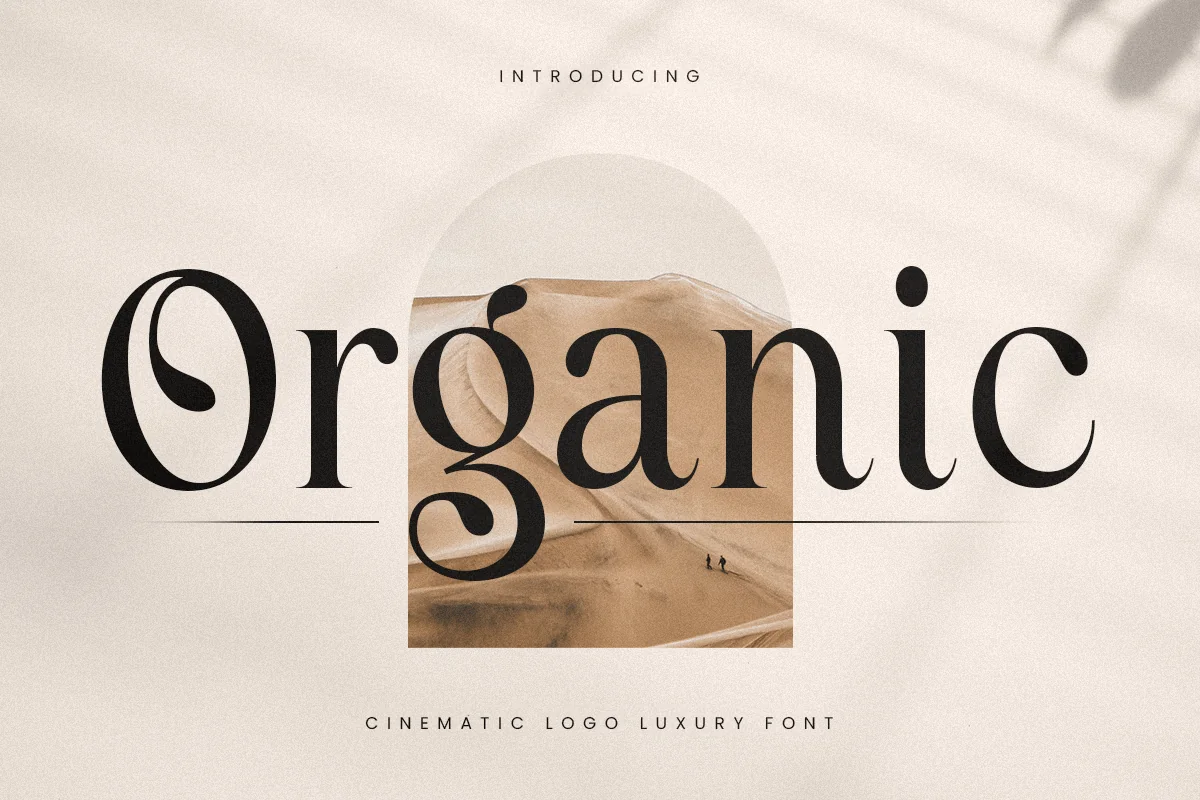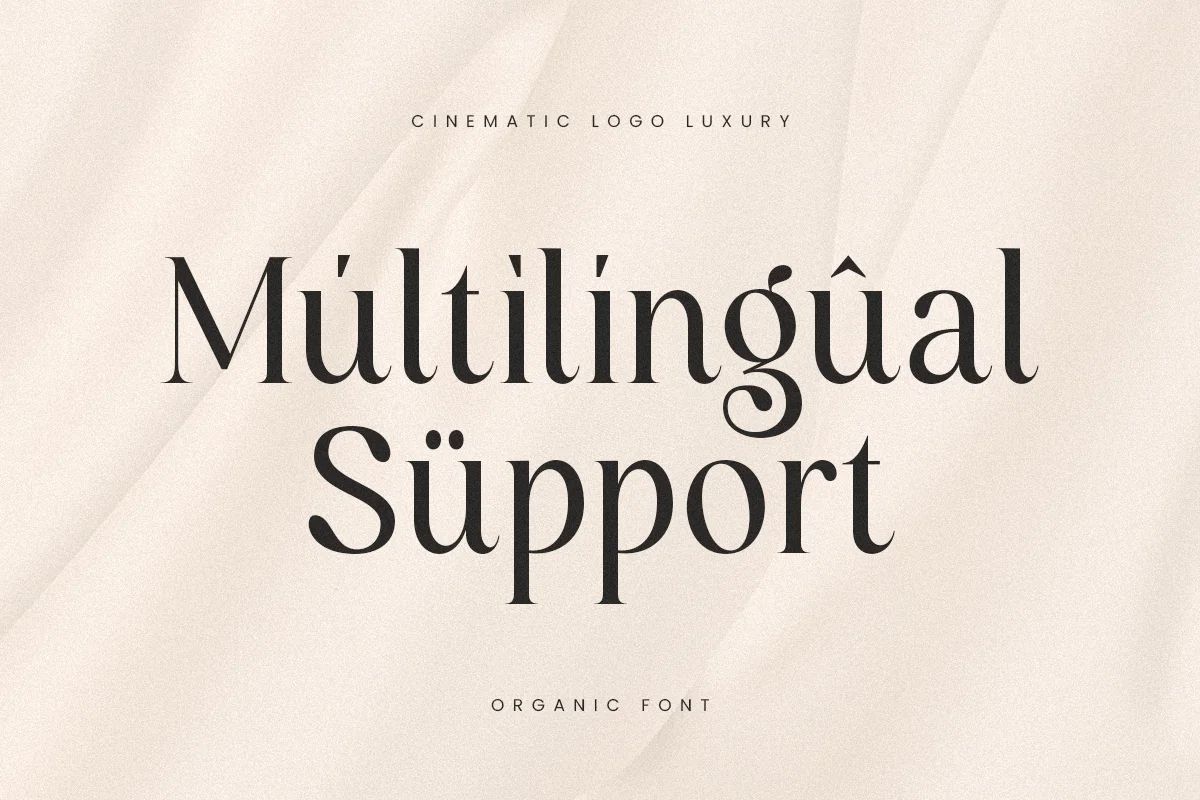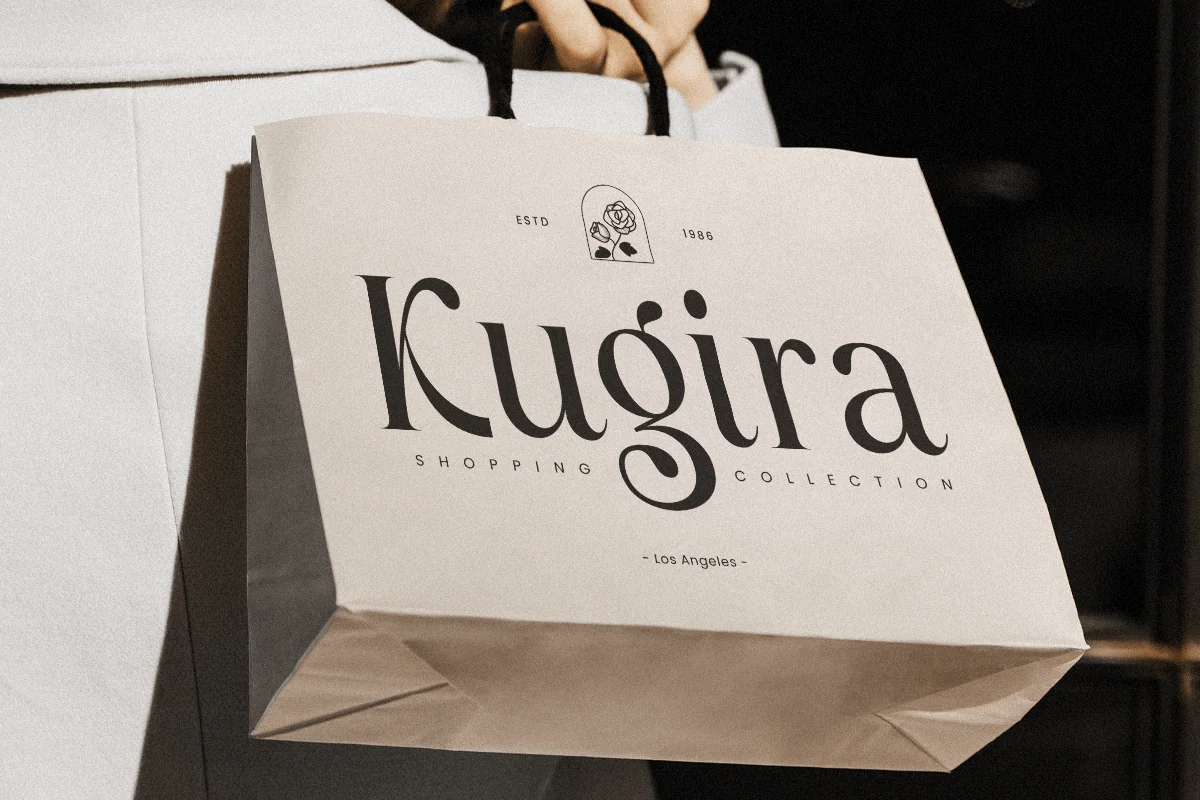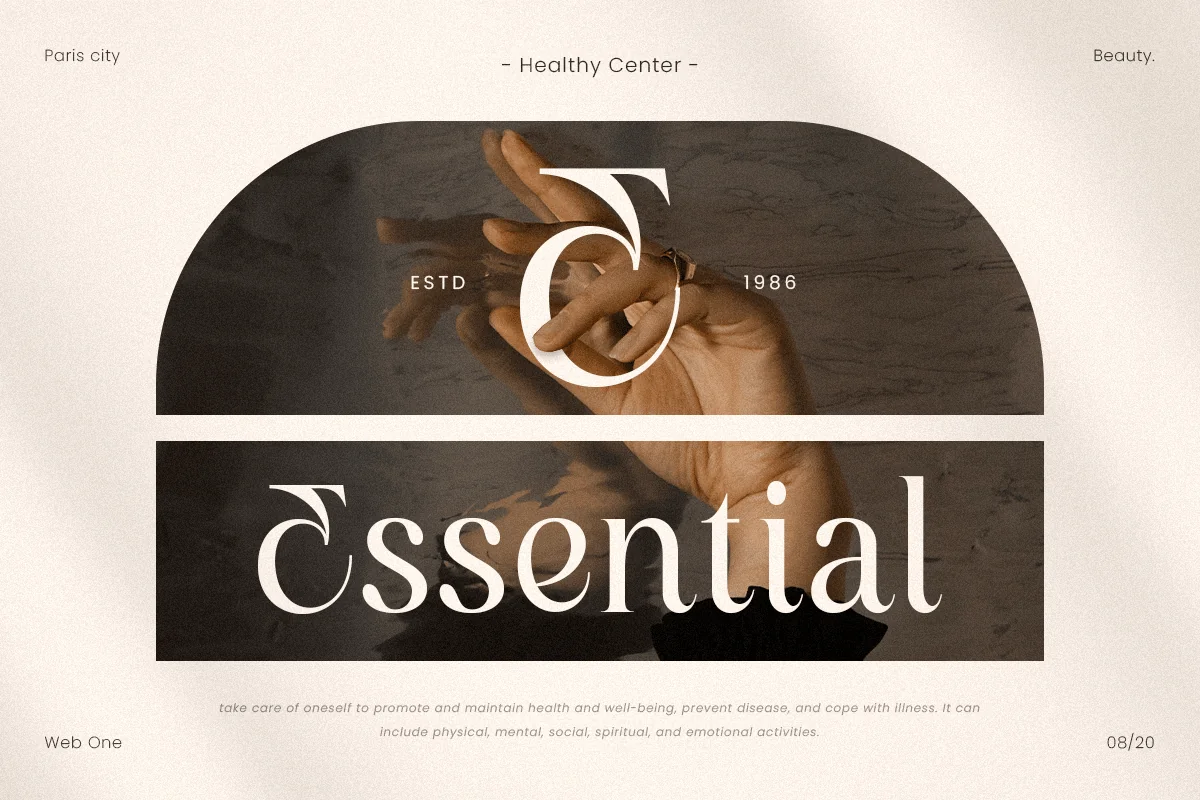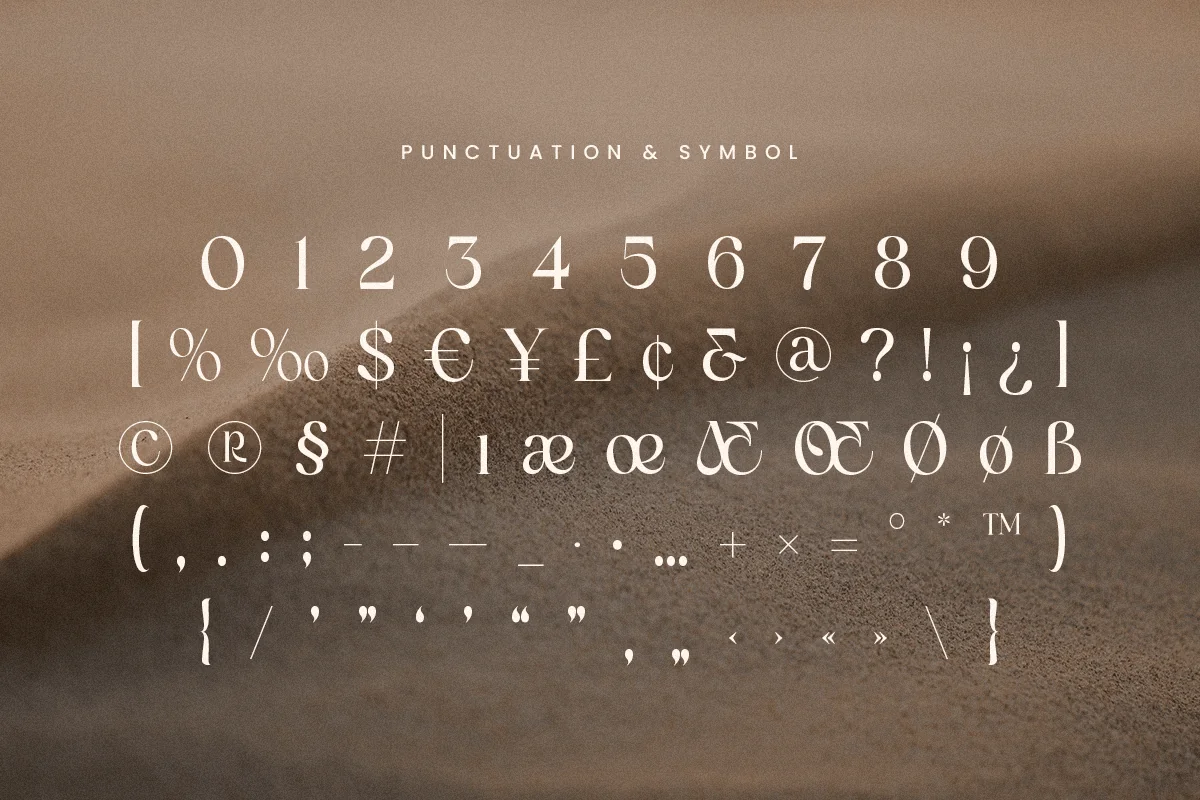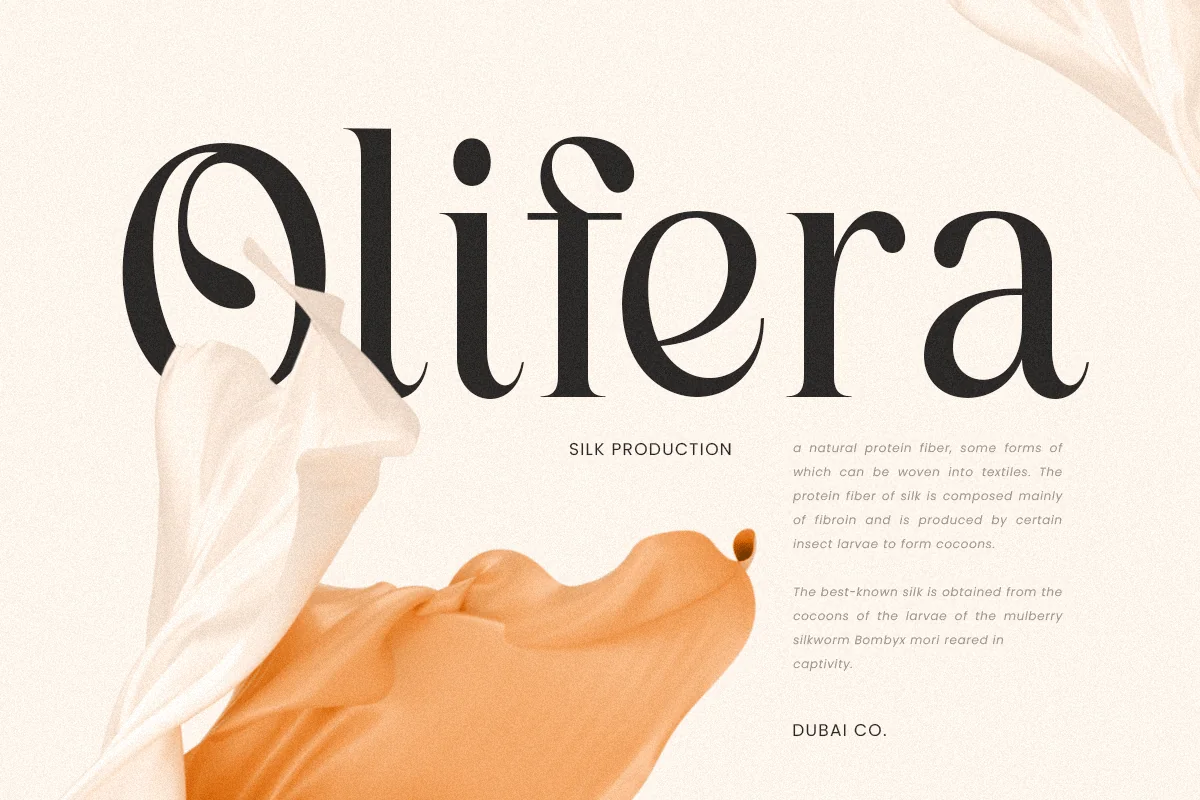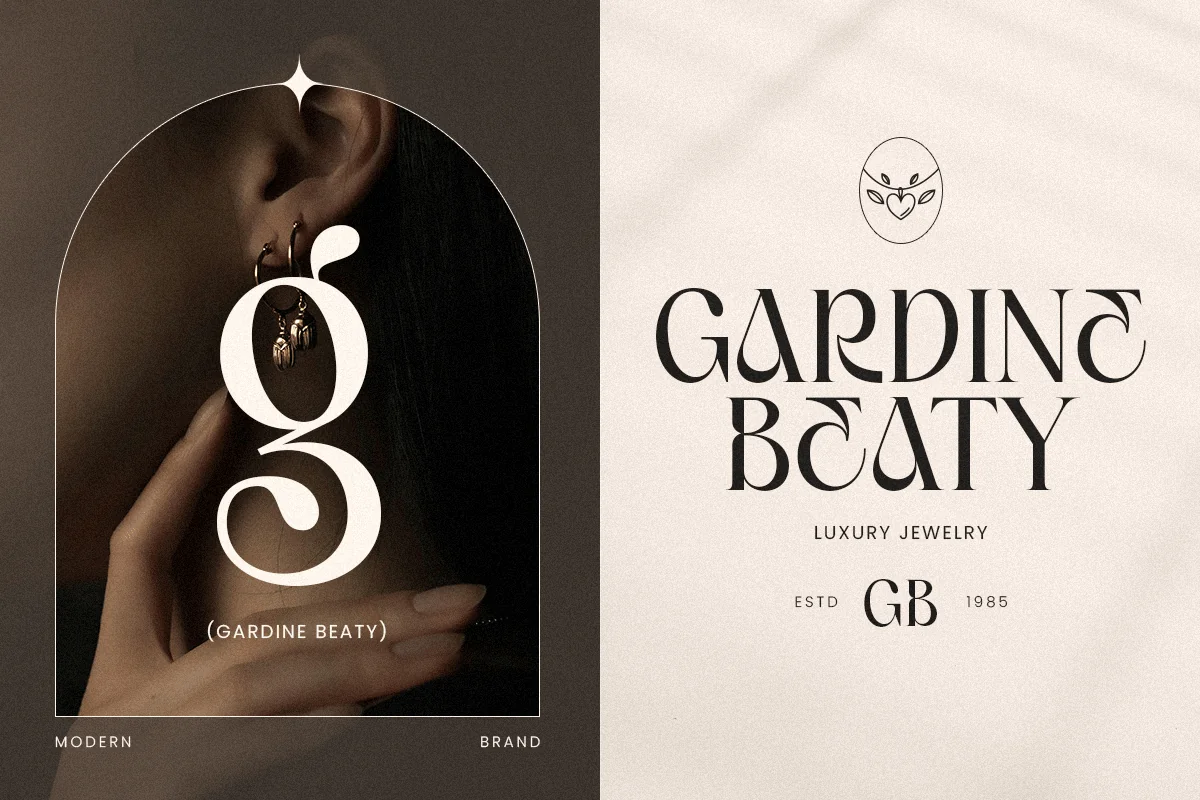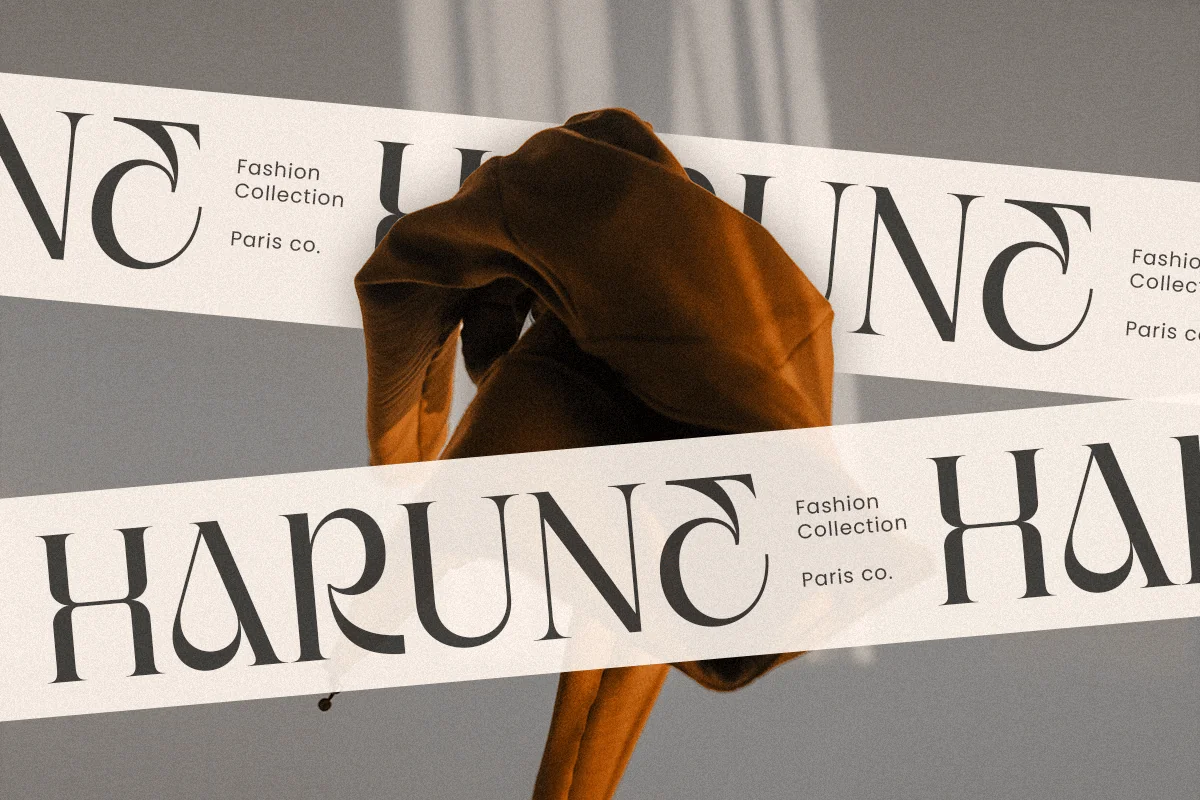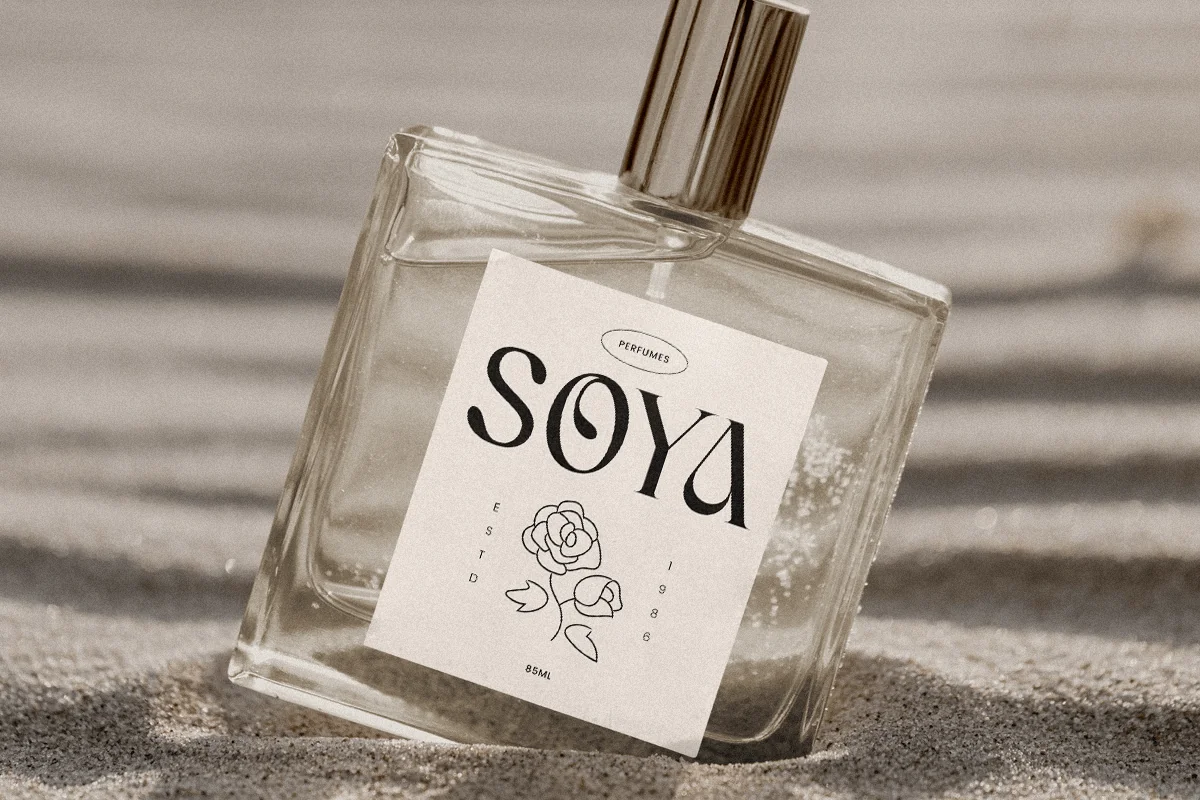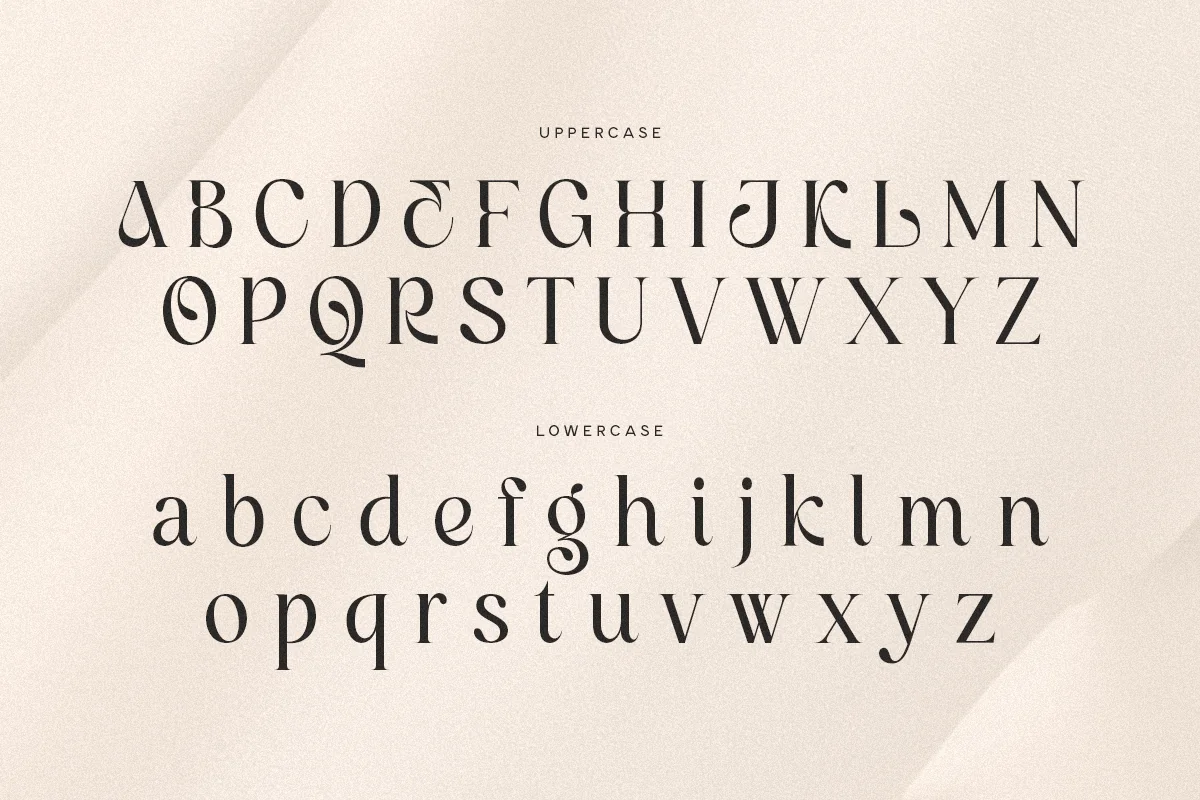
Organic – Cinematic Logo Luxury Font
An exclusive luxury font tailored for sophisticated and modern branding, offering an elegant aesthetic to enhance your brand’s allure. Crafted with unique alternates, this font is designed to elevate the value of your brand. Whether you’re a designer or a product owner seeking stylish and modern solutions, this font provides the perfect answer. Boasting an array of bohemian characters, it opens the door to endless creative possibilities, allowing you to create a myriad of variations for your unique and stylish designs.
- Unique Characters
- Character set A-Z
- Accented Characters (West Europe)